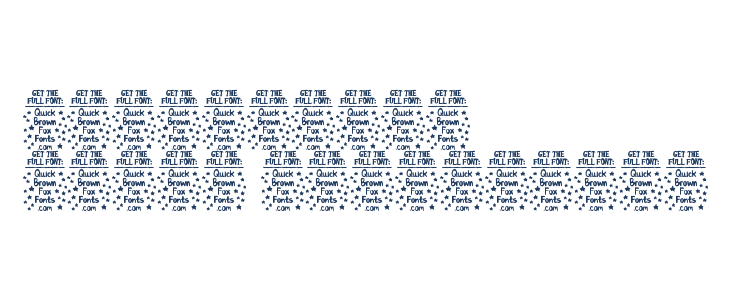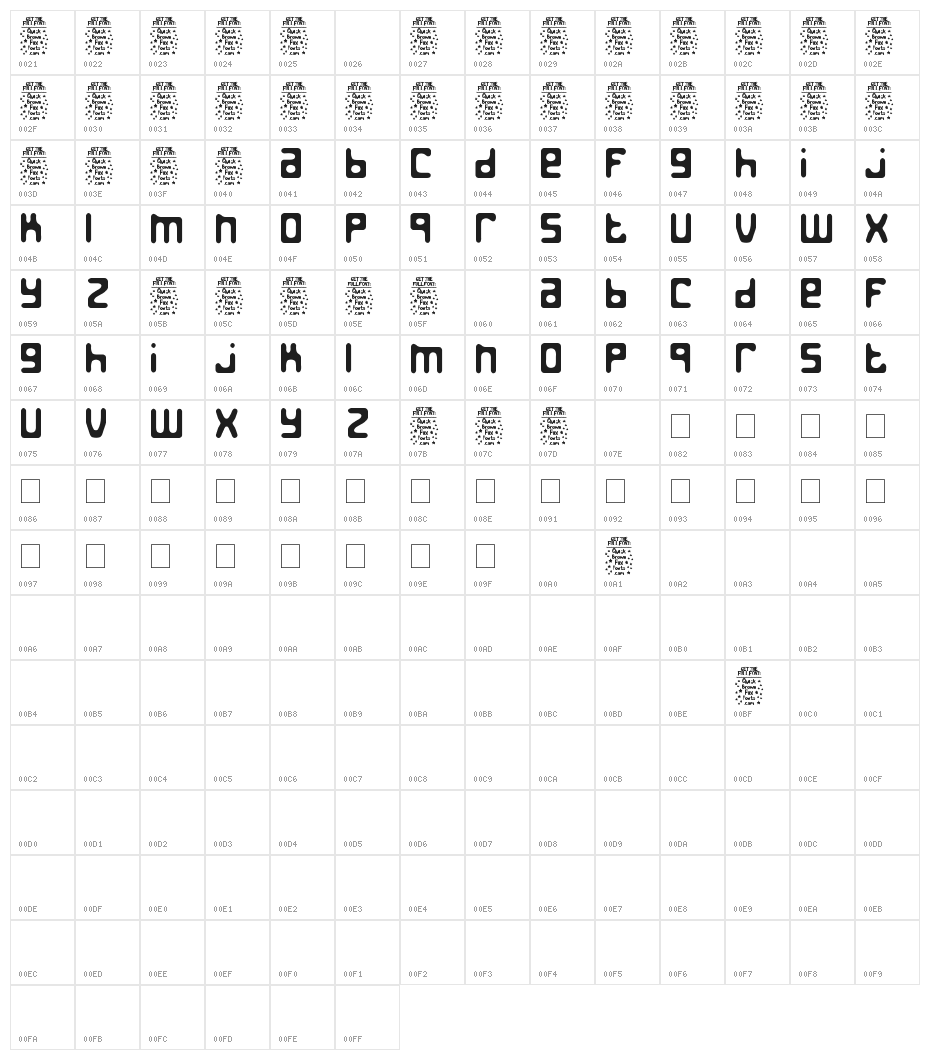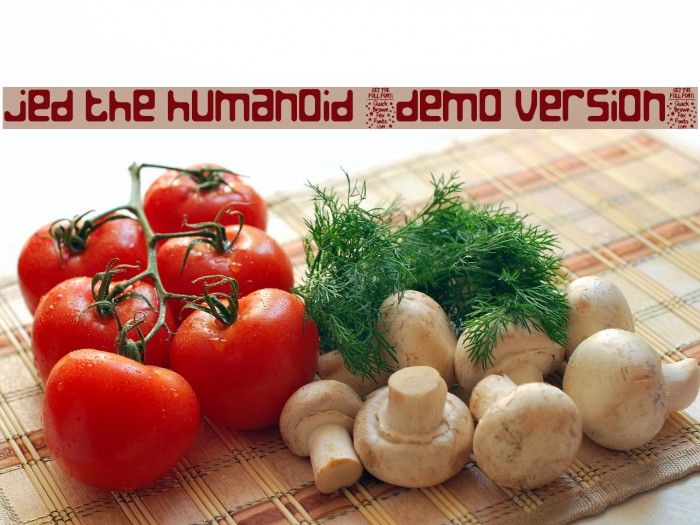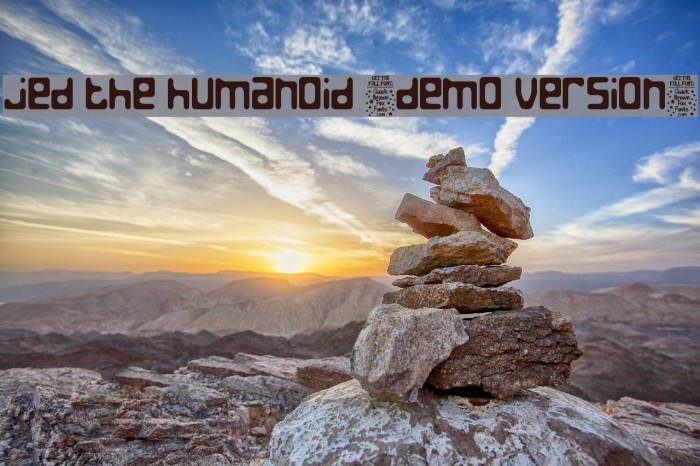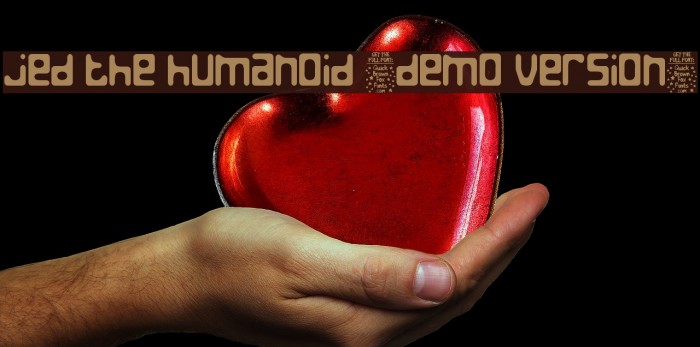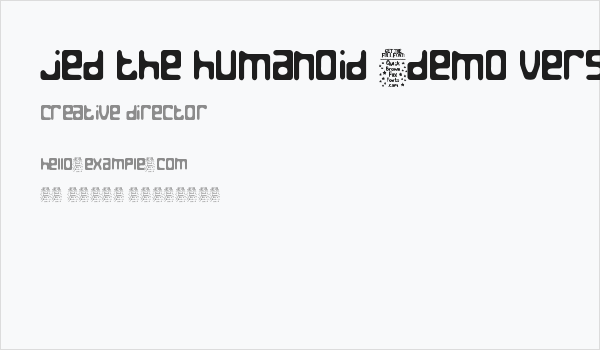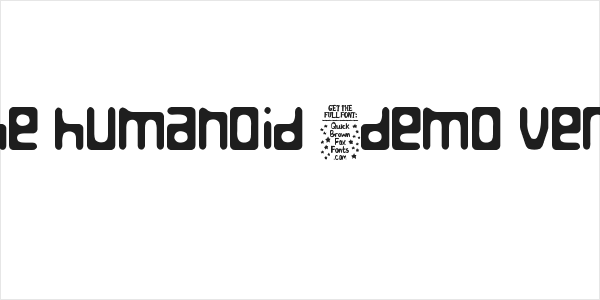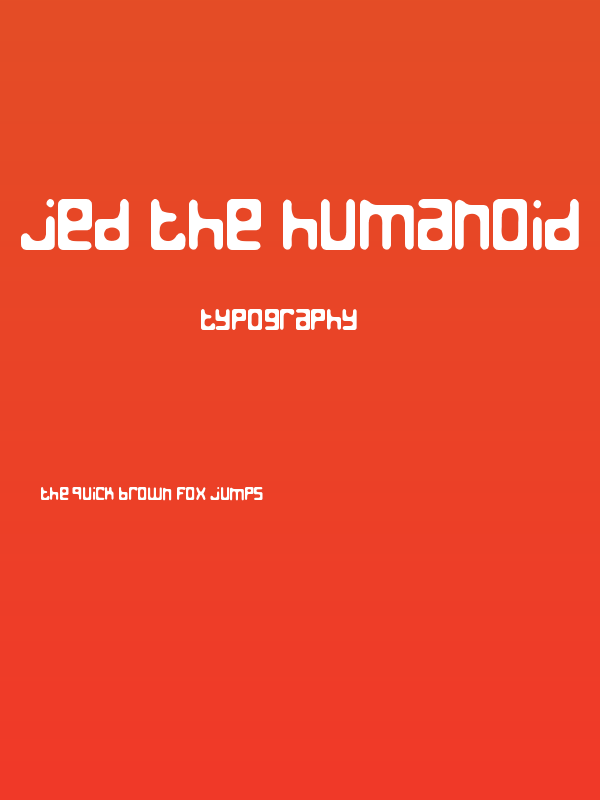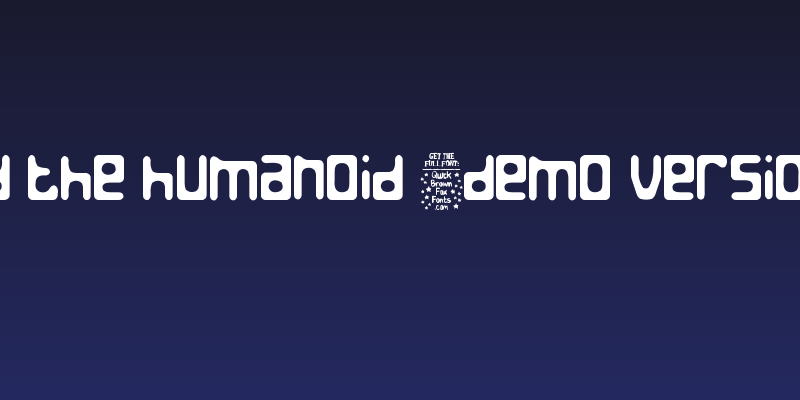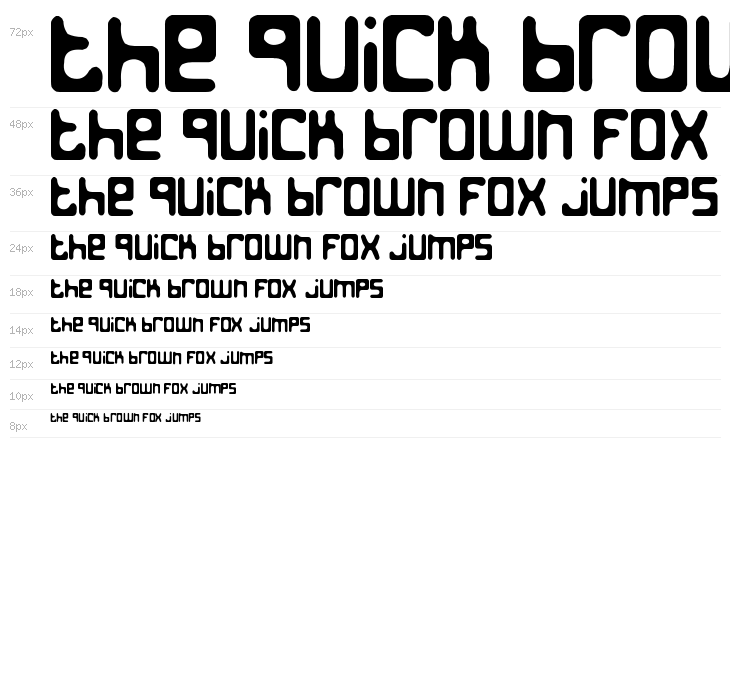
Jed the Humanoid [Demo Version] Font
Jed the Humanoid [Demo Version] Description
This font features a bold, rounded design with a futuristic and playful aesthetic. The characters are uniformly thick, with a consistent stroke width that gives them a solid and substantial appearance. The rounded edges and smooth curves create a friendly and approachable feel, while the geometric shapes add a modern touch. The uppercase and lowercase letters maintain a cohesive style, with the lowercase letters having a slightly more compact form. The numerals and special characters follow the same design principles, ensuring a harmonious look across all elements. This font is ideal for projects that require a bold and distinctive typeface with a modern twist.
| Proposed Projects | Ideal for branding, posters, video game graphics, and futuristic-themed designs. |